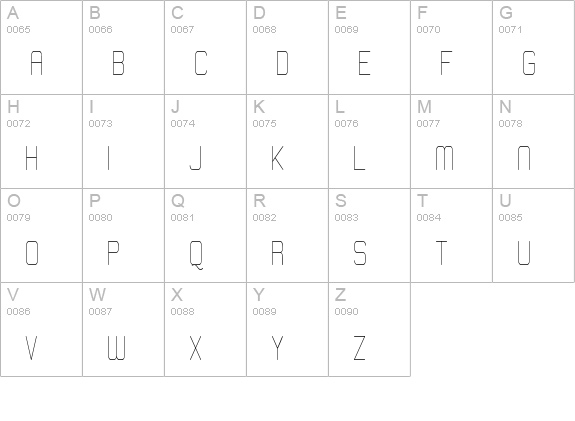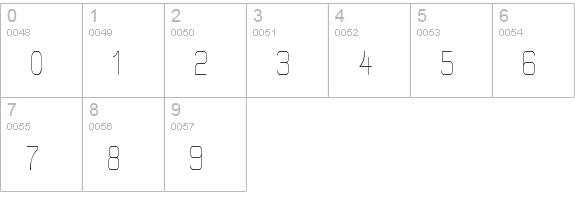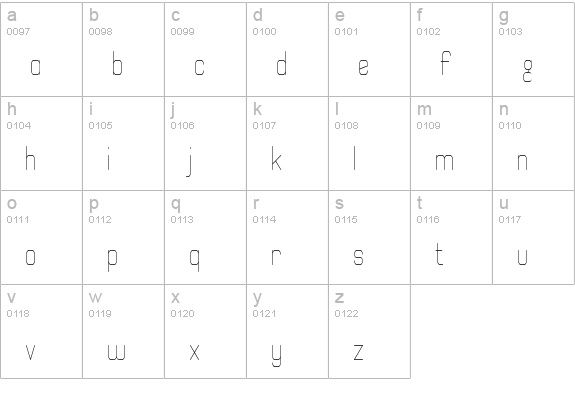
Elgethy Est Condensed is a distinctive, condensed-width variant in the Elgethy typeface family \xE2\x80\x94 well suited to design and typography projects.
Elgethy Est Condensed font is a modern and sleek typeface that exudes elegance and sophistication. Its condensed design makes it perfect for creating eye-catching headlines, titles, and branding materials. This versatile font is ideal for a wide range of design projects, from logos and advertisements to packaging and web design. What sets Elgethy Est Condensed font apart is its unique blend of sharp lines and soft curves, giving it a contemporary and refined look. Whether you're designing for print or digital media, this font will add a touch of class to your projects. The best part is that Elgethy Est Condensed font is available for free download at FontsMarket.com. So go ahead and enhance your designs with this stylish and professional typeface today!